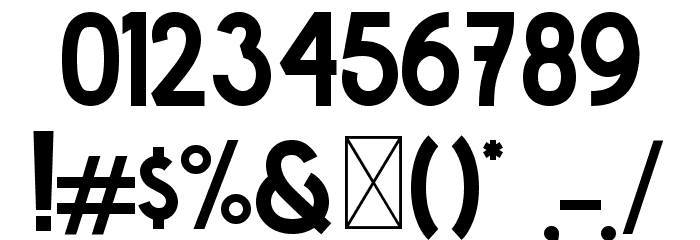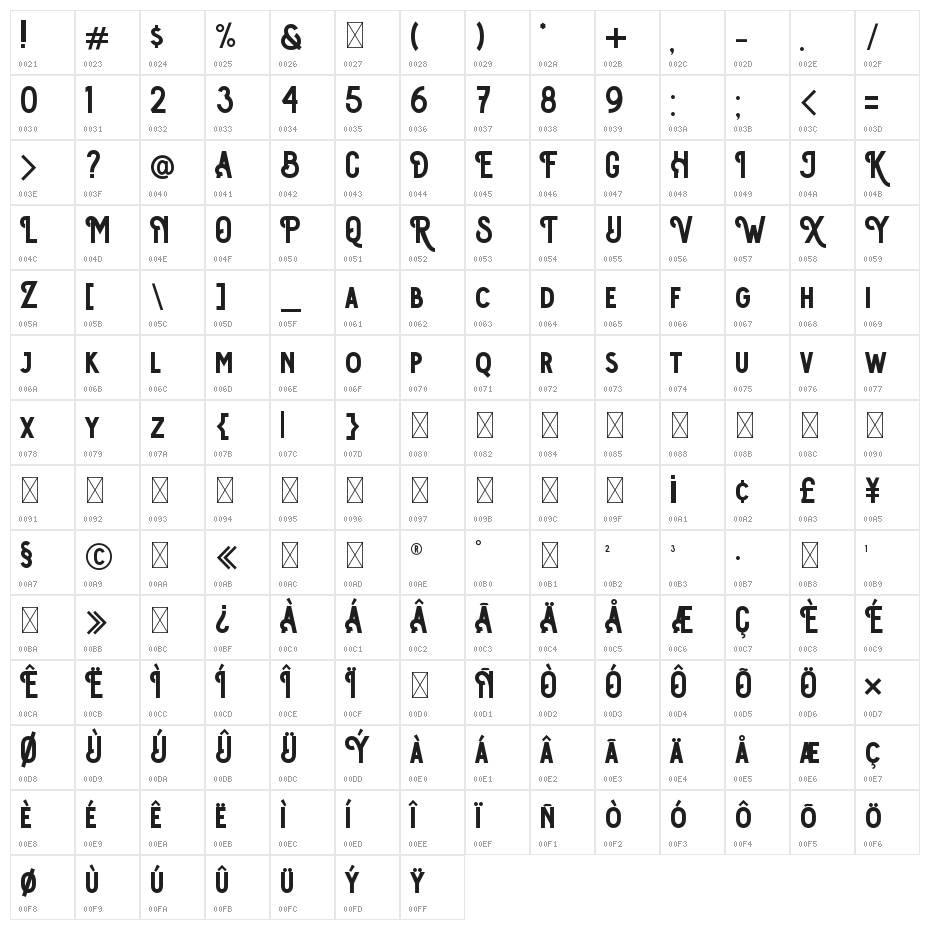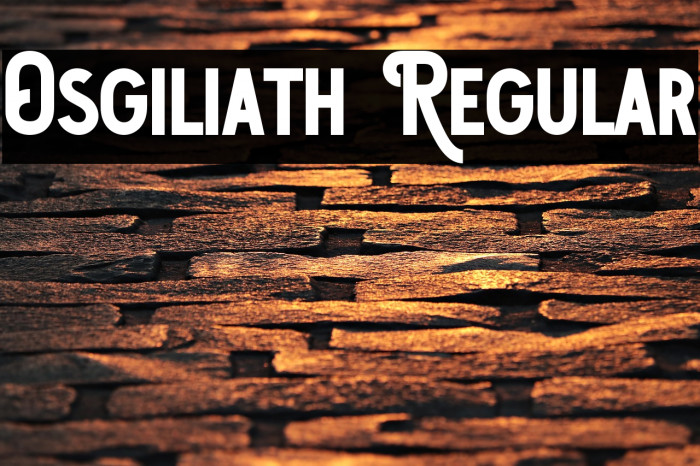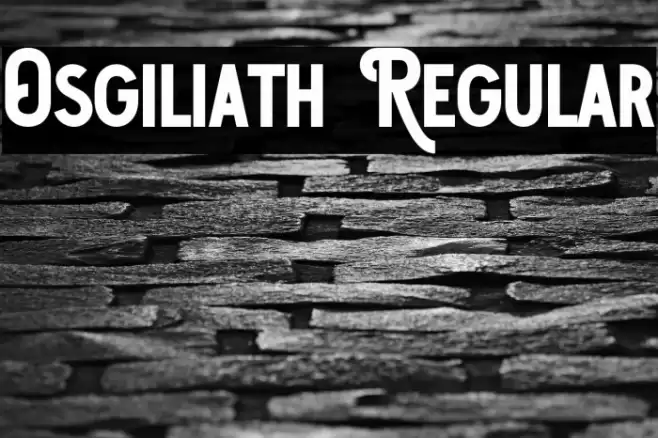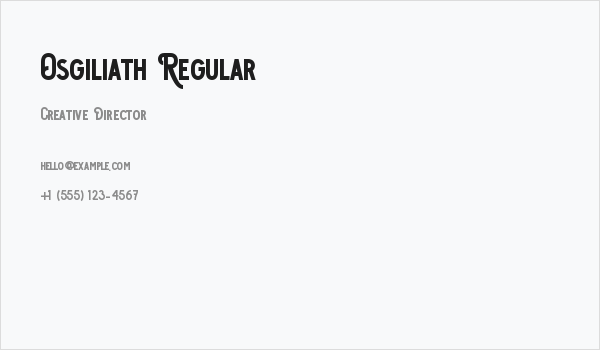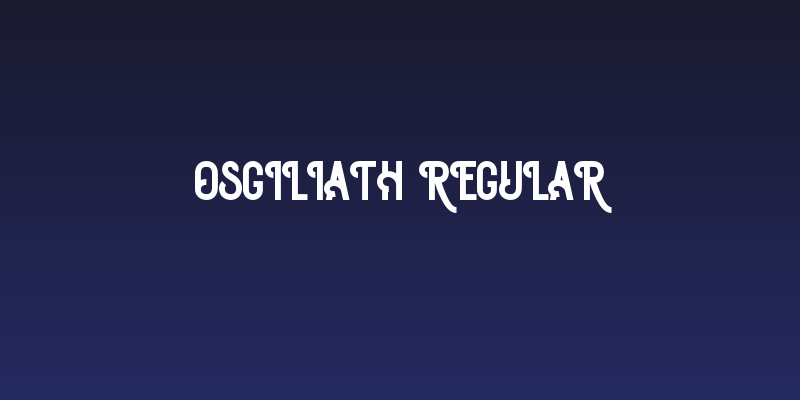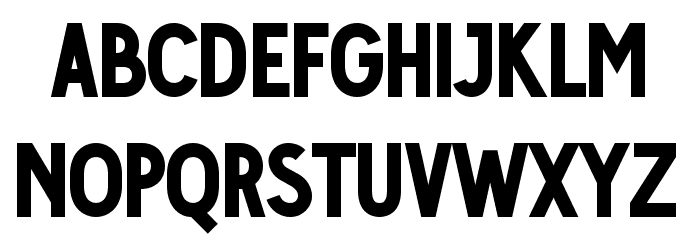
Osgiliath Regular Font
Osgiliath Regular Description
This font features a bold and striking design with a unique blend of modern and decorative elements. The uppercase letters exhibit a strong presence with distinct curves and angles, creating a sense of movement and flair. The lowercase letters maintain a consistent style, complementing the uppercase with their bold strokes and clear readability. Numbers are equally bold, ensuring visibility and impact. Special characters are designed to match the overall aesthetic, adding a cohesive look to any text. The font's style is both eye-catching and versatile, making it suitable for various creative applications.
Overall StyleModern, Decorative
Proposed ProjectsIdeal for branding, posters, headlines, and any project requiring a bold statement.